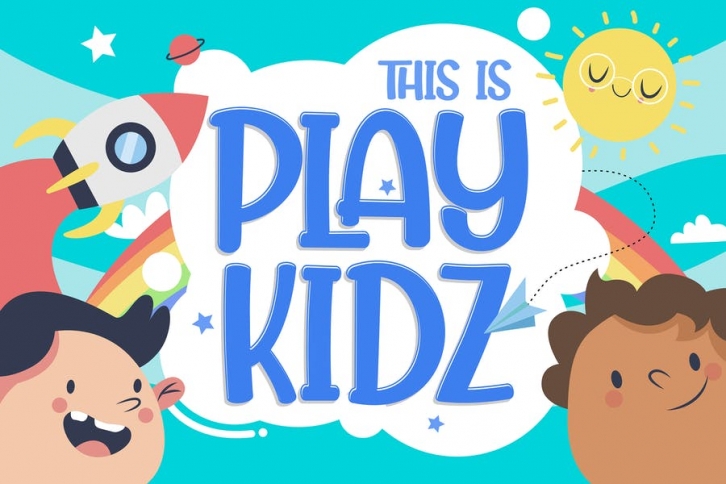
Playkidz - Fun Font Download
In collaboration with Figuree Studio
Playkidz is a fun, all-caps, and cheerful typeface that we crafted to be used in every design for kids activity related. This font is best for book or comic kid usually read, because it's so catchy that will make kids pay attention to what teacher need to say. Also the font is good to be used on flyer or announcement on birthday party, event, any celebration moment.